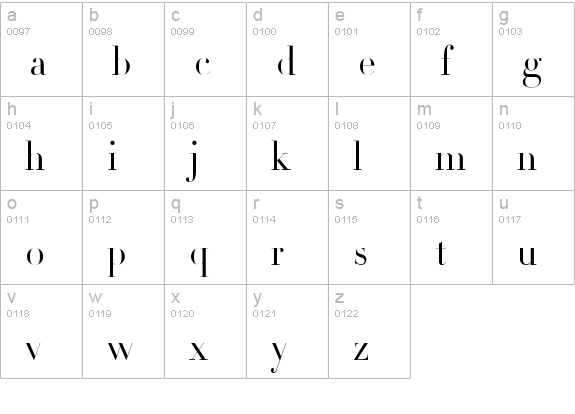
Didot-HTF-L42-Light Font Details
Didot-HTF-L42-Light is a refined, elegant variant in the Didot typeface family \xE2\x80\x94 well suited to elegant body text, refined sub-headings, and luxury branding.
The Didot-HTF-L42-Light font is a timeless and elegant typeface that exudes sophistication and refinement. With its delicate serifs and graceful letterforms, this font is perfect for adding a touch of class to any design project. Whether you're creating invitations, branding materials, or editorial layouts, Didot-HTF-L42-Light will elevate your work to new heights. The best part? This exquisite font is available for free download at FontsMarket.com. Now you can bring a touch of luxury to your projects without breaking the bank. Don't miss out on the opportunity to enhance your designs with the beauty of Didot-HTF-L42-Light. Download it today and start creating stunning visuals that will leave a lasting impression.